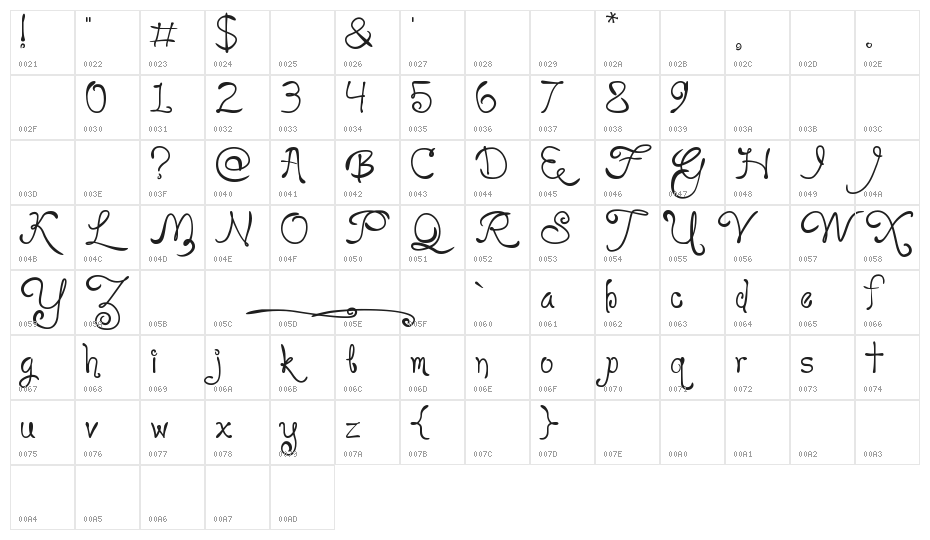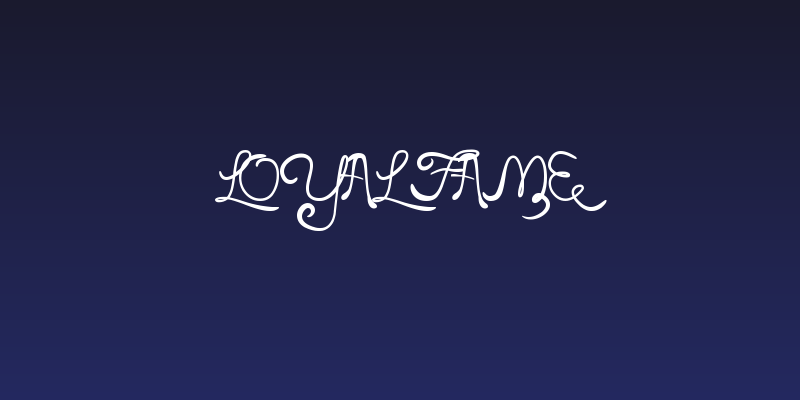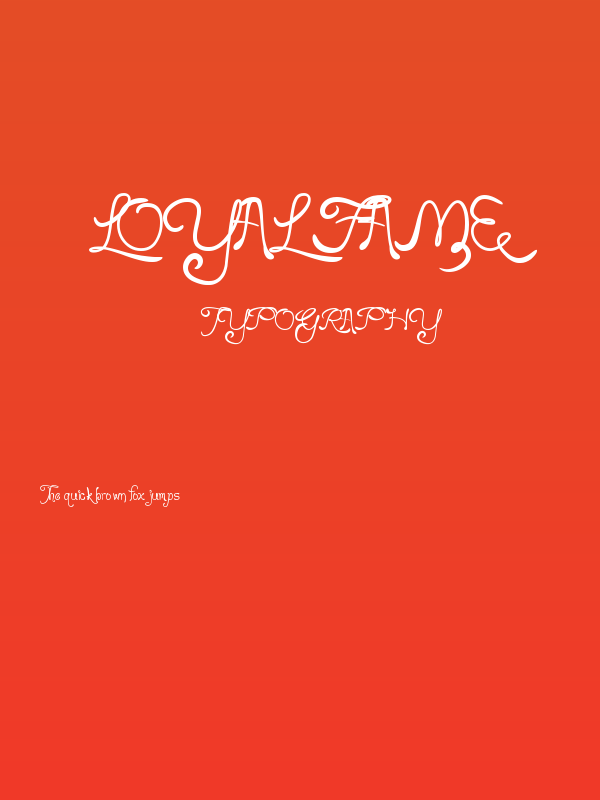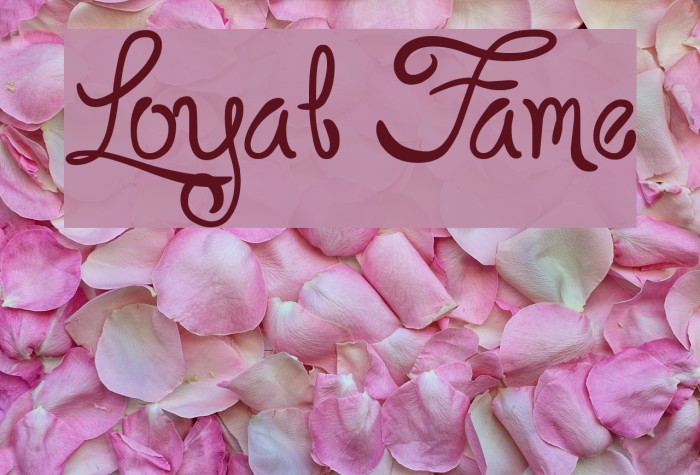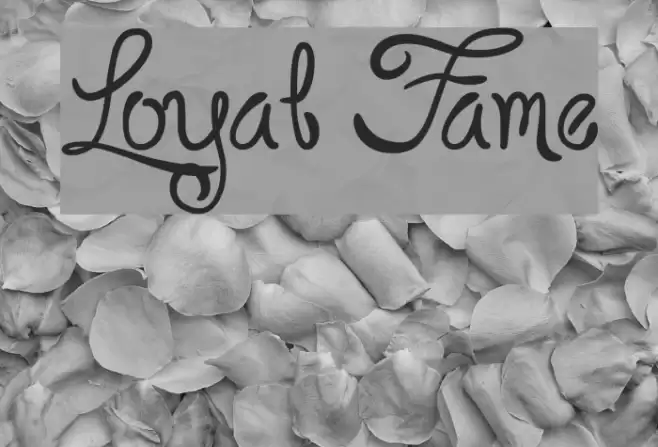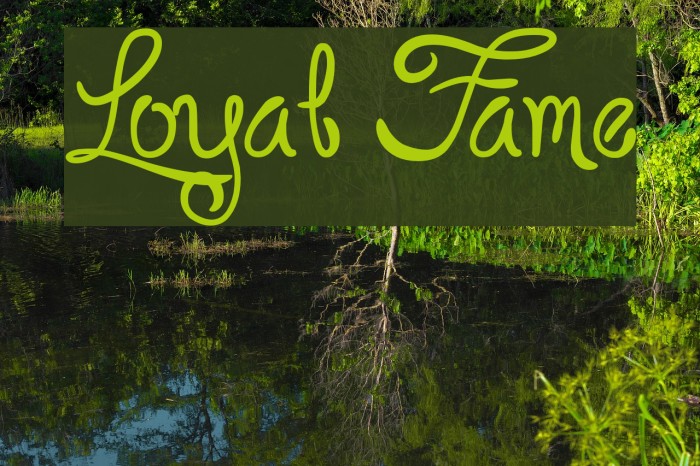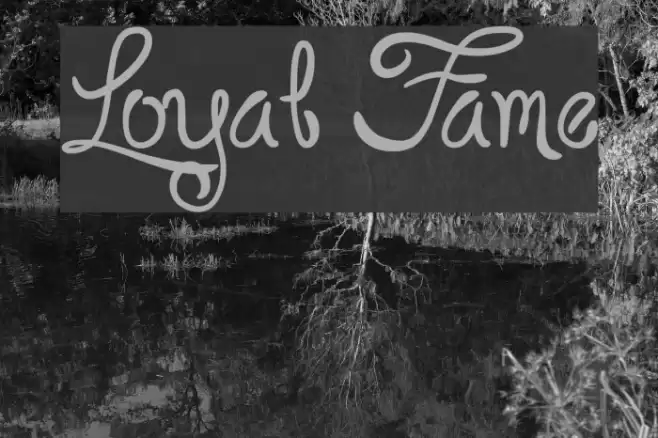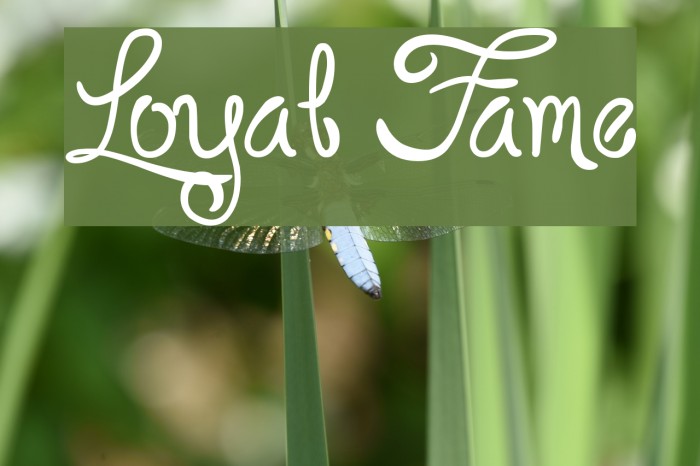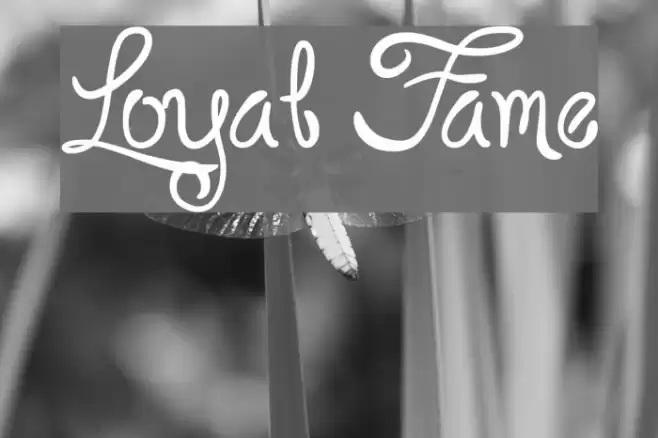
Loyal Fame Font
Loyal Fame Description
This font exhibits a whimsical and playful style with its curly and flowing letterforms. The uppercase letters feature unique loops and swirls, giving them a decorative flair. The lowercase letters maintain a consistent style, with some characters having distinctive embellishments that add to the font's charm. The numerals are equally stylized, with a consistent stroke width that complements the overall design. Special characters are creatively integrated, maintaining the font's playful aesthetic. This font's artistic nature makes it suitable for projects that require a touch of elegance and creativity.
| Use Case | Logos, Invitations, Artistic projects |
| Proposed Projects | Ideal for invitations, greeting cards, branding, and artistic projects that require a playful and elegant touch. |